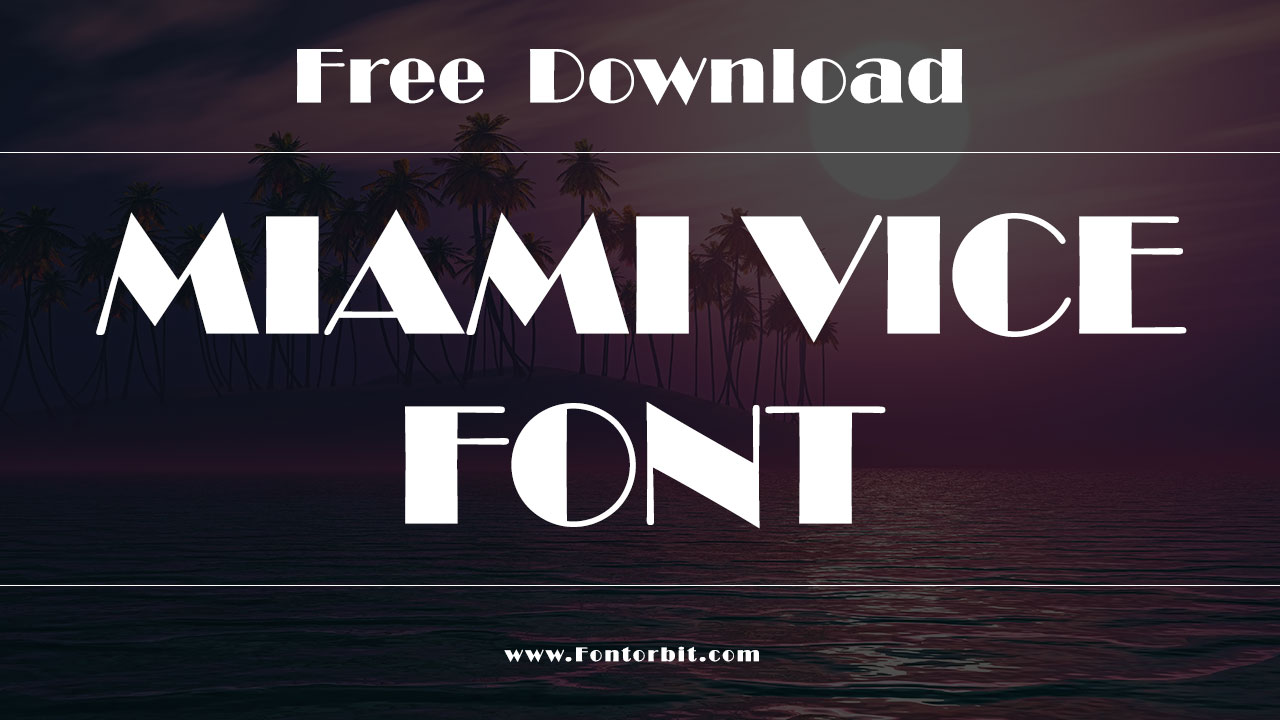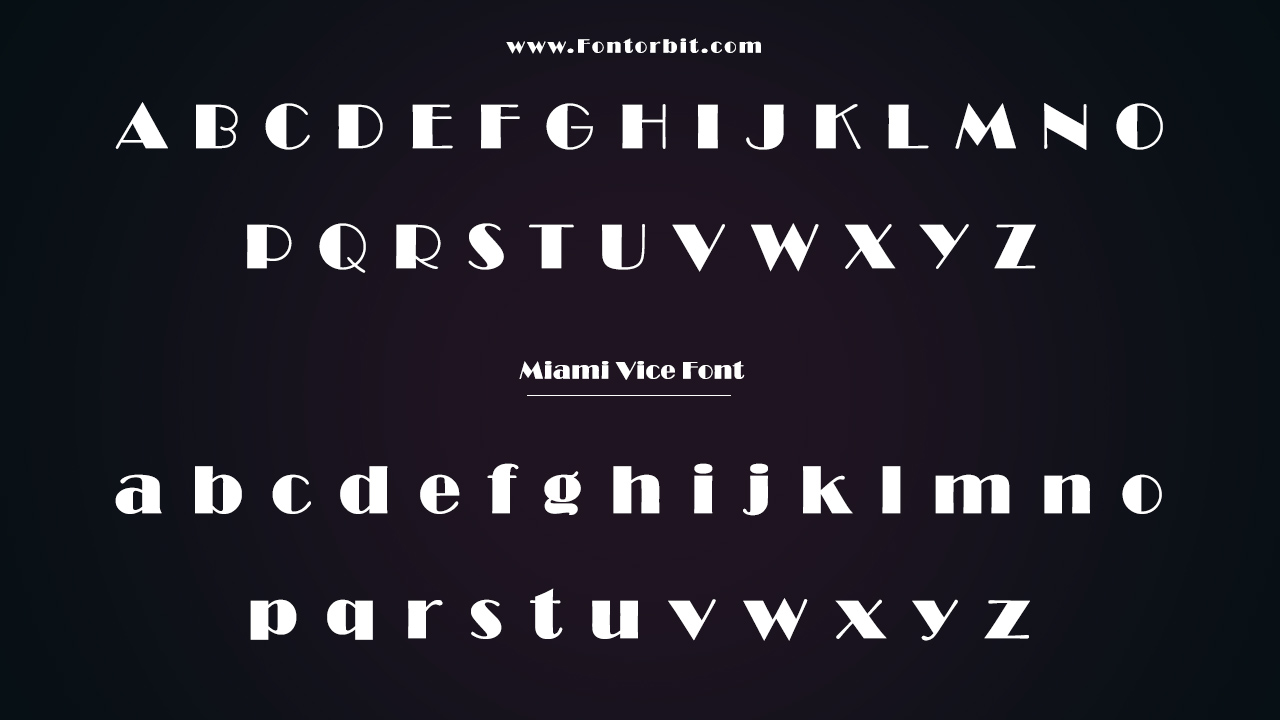
The Miami Vice Font is a retro, stylish typeface inspired by the iconic 1980s TV series “Miami Vice.” The font represents Miami’s vibrant, electric atmosphere in the ’80s, characterized by neon lights, pastel colors, and bold aesthetics. While the original logo font used in the show is a custom design, several fonts like “Broadway” (created by Morris Fuller Benton in 1927) and similar alternatives capture the essence of the Miami Vice logo. Designers often use these fonts in pop culture references, branding, and fan designs.
This font family, though not officially a single family, includes several variations and customizations that closely match the original Miami Vice logo:
The Miami Vice font and its variations are perfect for projects that require a retro, vibrant, and tropical feel. It adds an immediate sense of 80s nostalgia, making it suitable for fan art, branding, and creative advertisements. Here’s where you can use it:
- TV & Film Titles
- Event Posters
- Fashion Branding
- Graphic Design Projects
- Fan Creations
The Miami Vice font style embodies the retro, neon-lit atmosphere of Miami in the 1980s. It’s perfect for projects aiming to evoke nostalgia or a vibrant, tropical vibe. While not officially available for free, many alternatives can be used to replicate the iconic aesthetic in graphic design, branding, and fan art. Whether you’re a designer looking to invoke that classic 80s feeling or just a fan, these fonts are sure to make a bold statement.
1.Where Is The Miami Vice Font Used Today?
The Miami Vice font is widely used in pop culture references, such as retro-themed merchandise, posters, and social media graphics. It’s also popular in Miami branding, particularly for businesses like restaurants, clubs, or events that embrace the city’s iconic 80s aesthetic. Fans of the show often use it for fan art or tributes, keeping its legacy alive in creative designs.
2.What Is Miami Vice Known For?
Miami Vice is best known for its iconic TV show, which defined 80s pop culture with its stylish visuals, gripping crime drama, and vibrant color palette. The show also popularized 80s fashion, such as pastel suits and casual chic. Its neon aesthetic and connection to Miami’s vibrant nightlife continue to influence design and media trends today.
4.What Does The Miami Vice Font Look Like?
The Miami Vice font features a retro, neon aesthetic influenced by Art Deco design. It uses bold, clean lines and geometric shapes to create a modern yet vintage feel. Its pastel-inspired color palette, often featuring shades of pink, blue, and purple, enhances its connection to the iconic 80s Miami vibe.
5.What Font Does Miami Heat Use For Its Vice Collection?
The Miami Heat’s Vice collection features a custom font inspired by the Miami Vice aesthetic. This font captures the retro and neon-infused style, combining sleek lines with vibrant colors to reflect Miami’s cultural and artistic energy. It has become synonymous with the Heat’s brand and the city’s identity.
7.Is Miami Vice Font Suitable For Modern Projects?
Yes, the Miami Vice font works well for modern projects that embrace retro themes, such as fashion campaigns, neon-themed events, or social media content. Its timeless appeal blends vintage Art Deco charm with a contemporary edge, making it versatile for both nostalgic and trendy designs.